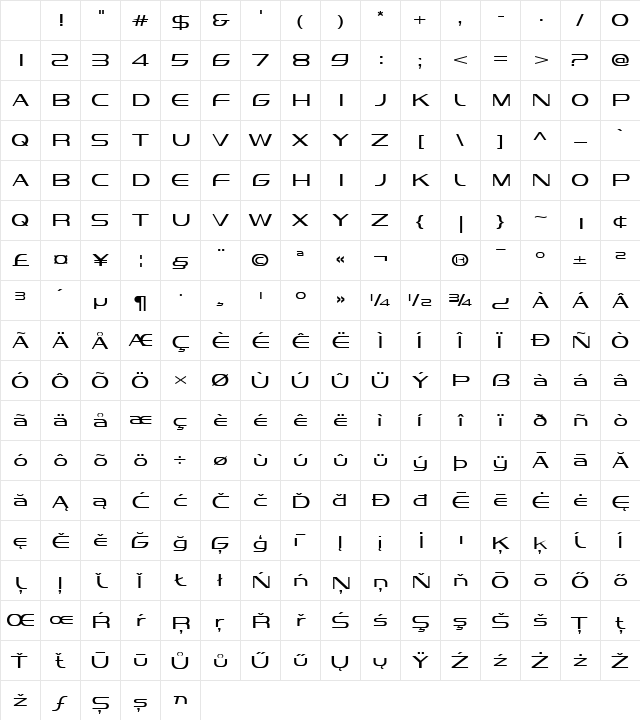
Complete Vandiana Platin Lite Regular glyph index. Displaying only characters natively supported by Vandiana Platin Lite Regular font.
Vandiana Platin Lite is a composed and adaptable typeface that performs quietly and consistently across a wide range of design contexts.